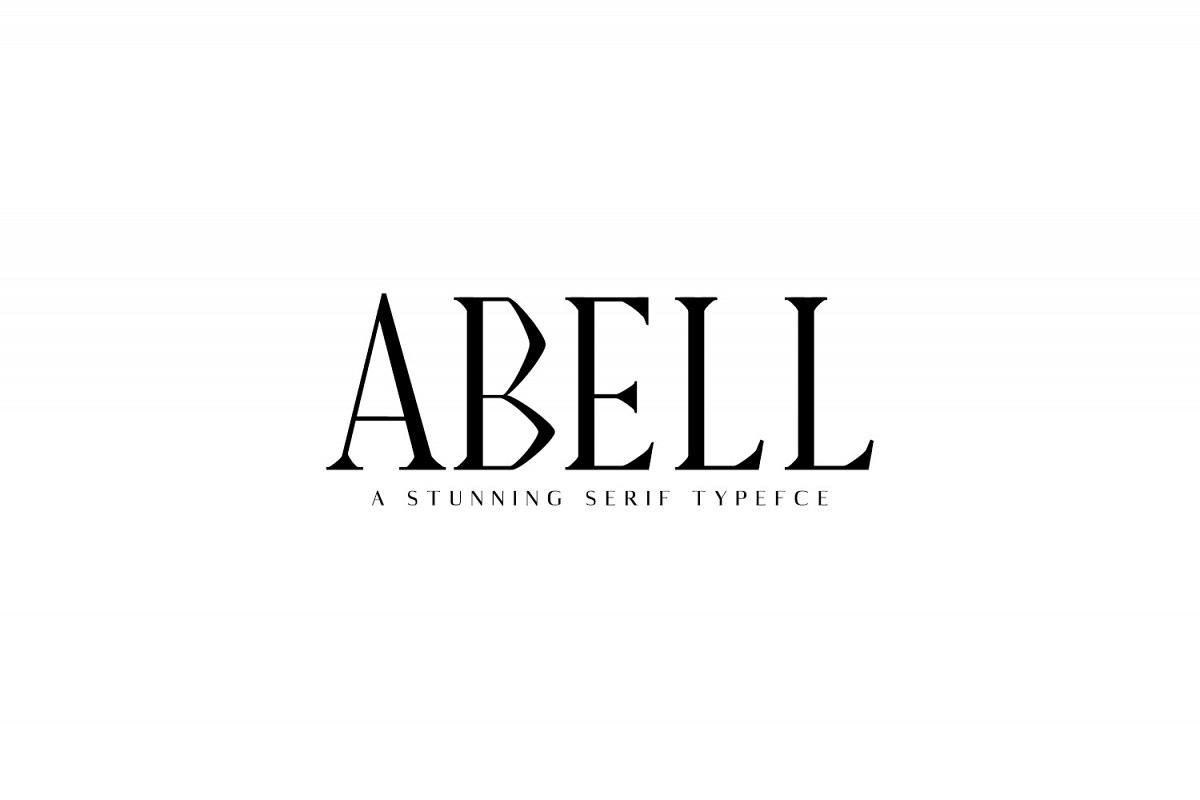
Abell Serif Font Family Pack
Abell Serif Font comes with little art-deco touch. It consists of 5 different weights. This lovely and unique serif font, allowing you to make each word look completely stylish. It pairs well with both script and sans-serif fonts and you can create unlimited looks. Abell suits best for modern designs, headlines, banners & templates, titles, magazines headings, logo's, presentations, posters, name card, web layouts, invitations, books, branding, and nearly any creative design.
Abell Font Features:
• Font Weight: Regular, Light, Thin, Thin Italic, Medium and Black
• Uppercase Multilingual Letters
• Lowercase Multilingual Letters
• Non English Characters ( Latin Extended A )